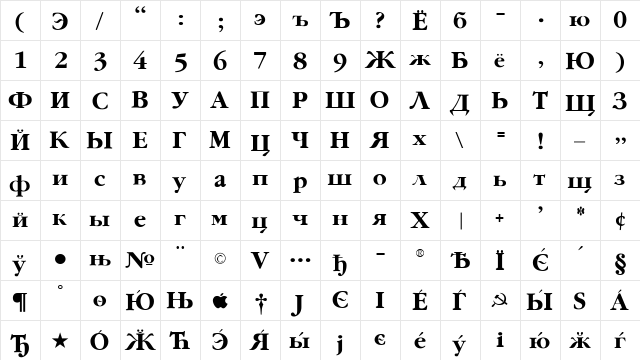
GaramondFLFCyrillic-Bold Regular
Design Context for GaramondFLFCyrillic-Bold Typeface
GaramondFLFCyrillic-Bold takes a measured approach to typography — its balanced proportions and neutral character make it a reliable workhorse for both digital and print work. Its bold stroke weight gives it real presence on the page.